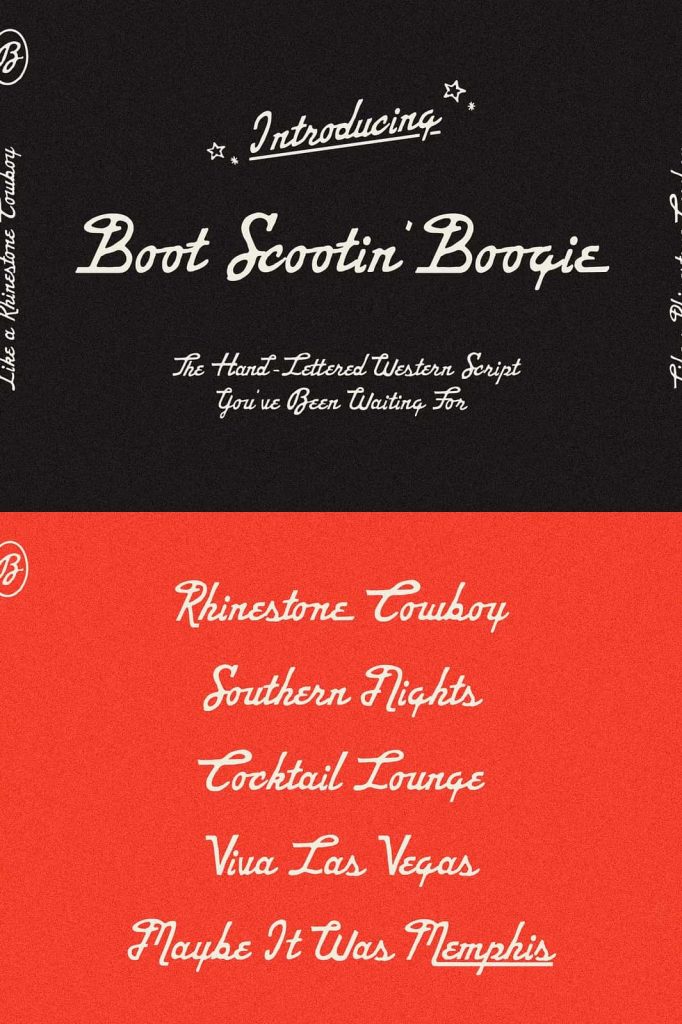
Boot Scootin’ Boogie Font: A Nostalgic Hand-Lettered Script with Retro Western Flair
Boot Scootin’ Boogie is a nostalgic hand-lettered script font inspired by the bold personality and rugged charm of the retro Western era. Designed to capture the spirit of vintage Americana, this script font blends expressive movement with handcrafted detail. Every stroke of Boot Scootin’ Boogie reflects the dynamic energy of old-time saloons, classic rodeo posters, and dusty roadside signage. Its distinctive Western flair adds character, authenticity, and visual rhythm to any project that seeks a historic, adventurous, or rustic tone.
A Hand-Lettered Script Rooted in Western Nostalgia
Boot Scootin’ Boogie embodies the warmth and spirit of classic hand-drawn lettering. The font carries subtle imperfections, textured strokes, and lively curves that mimic the charm of traditional calligraphy crafted with brush and pen. Rather than presenting a sterile or overly polished look, it celebrates the organic aesthetics of vintage Western typography. This authenticity makes your text feel more expressive, inviting, and true to the era it represents.
Designers searching for a script that offers both personality and historical influence will appreciate the character-rich form of Boot Scootin’ Boogie. Its movement recalls old Western dance floors, swinging saloon doors, and handwritten advertisements from a bygone time. As a result, the font not only communicates words but also tells a story through every letter.
Add Retro Character and Bold Expression to Your Designs
One of the key strengths of Boot Scootin’ Boogie is its ability to bring strong visual impact to a wide range of creative projects. Its retro script style immediately attracts attention and creates a memorable impression. Whether used in headlines, branding elements, or decorative text, the font brings energy and bold personality to your design layout.
The dramatic curves and sweeping strokes allow designers to emphasize key phrases and elevate ordinary text into dynamic visual elements. This strong expressive quality makes the font a powerful choice for themes centered around adventure, rugged charm, heritage, or Americana nostalgia.
Perfect for Vintage Branding, Posters, and Western-Themed Designs
Boot Scootin’ Boogie excels in projects where atmosphere and style play an essential role. The font’s Western influence makes it ideal for branding concepts related to country lifestyle, retro products, rustic shops, breweries, cafés, leather goods, and outdoor-inspired businesses. When applied to logos or packaging, it reinforces a genuine, handcrafted identity and gives brands a timeless appeal.
Posters, event flyers, signage, and merchandise designs also benefit from the script’s lively movement and vintage spirit. Use Boot Scootin’ Boogie to create concert graphics, rodeo posters, festival signage, or nostalgic advertising pieces. Its expressive lettering enhances the mood of any themed event or product.
A Versatile Script for Digital Content, Crafts, and Personal Projects
Beyond branding and print design, Boot Scootin’ Boogie adapts beautifully to digital creative work. Social media graphics, promotional banners, website headers, and digital invitations become more engaging with its Western personality. The flowing script brings authenticity to inspirational quotes, featured text, and stylized announcements, helping your content stand out in visually competitive digital spaces.
Crafters and hobbyists will also appreciate its versatility. The font works well for vinyl designs, apparel printing, personalized gifts, woodworking signs, and handmade decorations. Its distinctive style elevates everyday creations and brings nostalgic charm to personal projects.
Bring Your Creative Vision to Life with Boot Scootin’ Boogie
Boot Scootin’ Boogie is more than a hand-lettered script font—it is a design tool that transports your audience into a retro Western world filled with charm, movement, and authenticity. Its expressive strokes, graceful flow, and handcrafted details make it ideal for projects that require a strong sense of character and storytelling.
Whether you are developing a vintage-inspired brand, designing eye-catching event posters, or crafting custom artwork with Western flair, Boot Scootin’ Boogie offers both style and emotional resonance. Its nostalgic script brings history, personality, and creative depth to anything you create.
Embrace the Western spirit and let Boot Scootin’ Boogie infuse your next project with bold lettering, vintage atmosphere, and timeless charm.